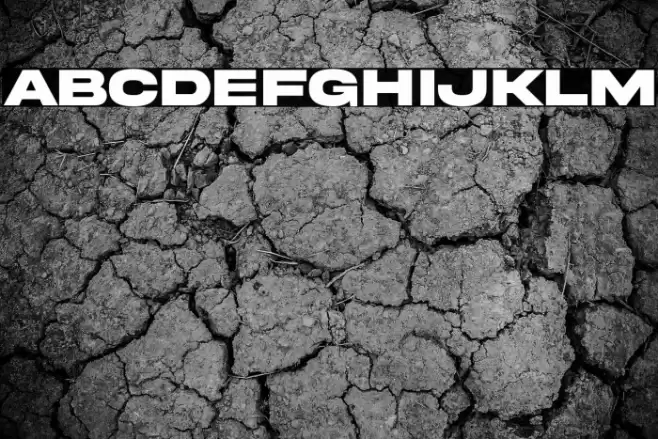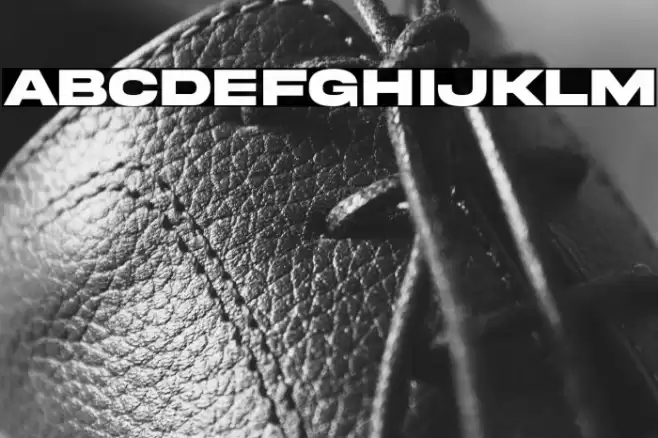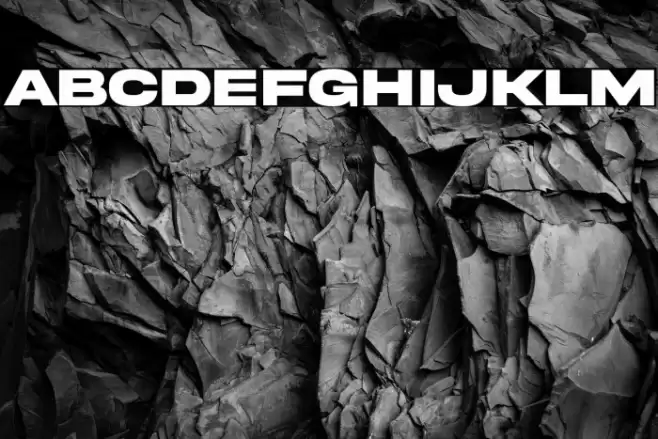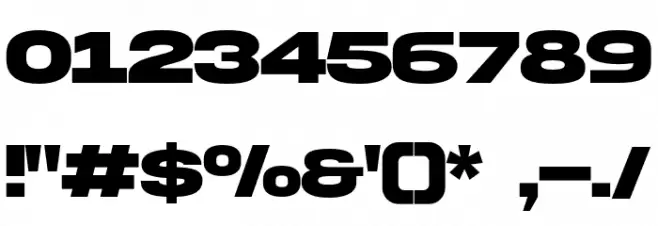
AkiraExpanded-SuperBold Font
AkiraExpanded-SuperBold Description
This font features a bold and expansive design, characterized by its strong, impactful presence. The letters are wide and robust, with a uniform stroke thickness that conveys a sense of power and stability. The uppercase and lowercase letters maintain a consistent style, ensuring readability and visual harmony. The numerals and special characters are equally bold, making them stand out effectively. This font's design is modern and assertive, suitable for making a strong visual statement.
A bold, expanded font with a strong, modern presence from Uncategorized fonts.
- Font: AkiraExpanded-SuperBold
- Proposed Projects: Ideal for headlines, posters, branding, and any project requiring a bold statement.
- Width: Expanded